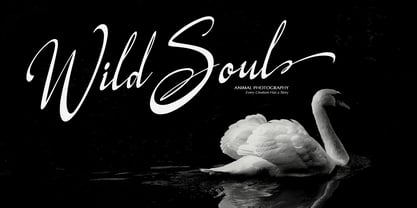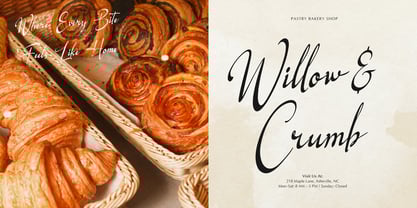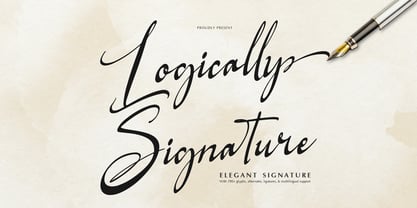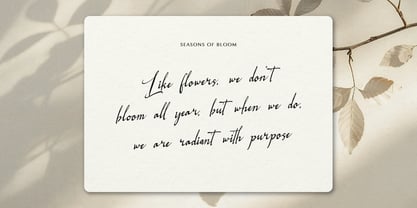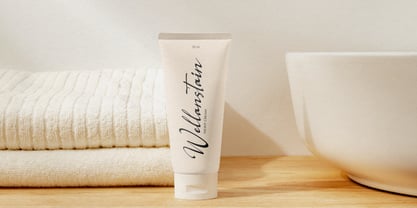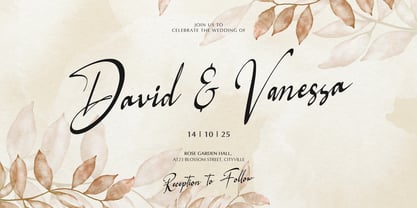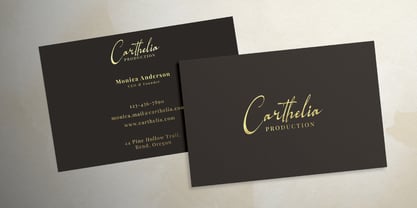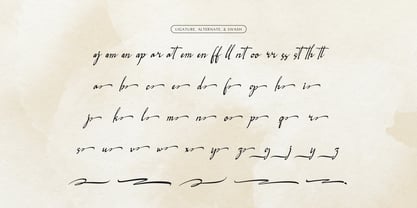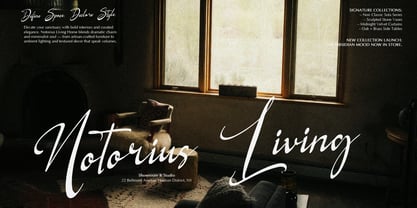
Logically Signature
by Tini Fitriani
The Logically Signature Font Family was designed by and published by Tini Fitriani. Logically Signature contains 2 styles and family package options. More about this family
Logically Signature | Elegant Signature, from Gracetypestudio, suitable for any projects such as: logos, branding projects, homeware designs, product packaging, mugs, quotes, posters, shopping bags, t-shirts, book covers, name card, invitation cards, greeting cards, label, photography, watermark, special events, and all your other lovely projects that need a Elegant Signature taste.
• Regular and Italic
• Standard glyphs
• Alternate and Ligature